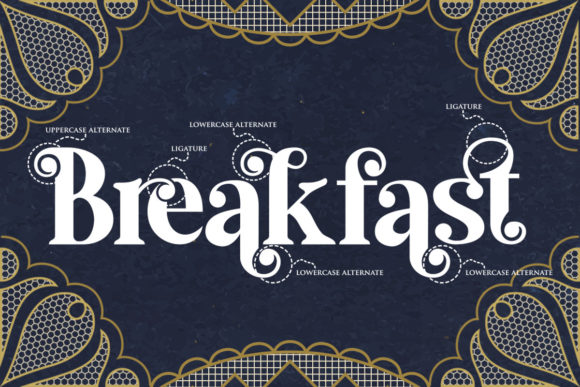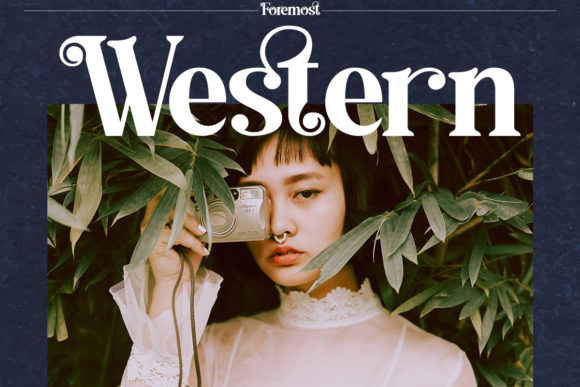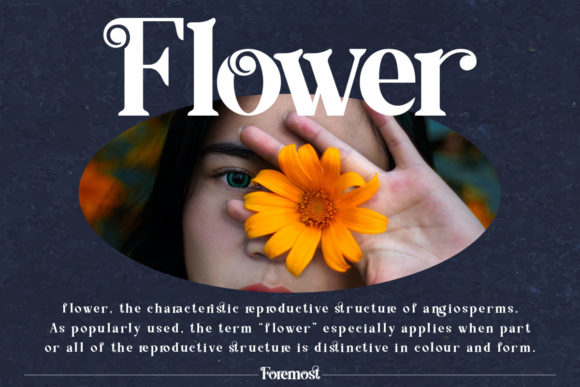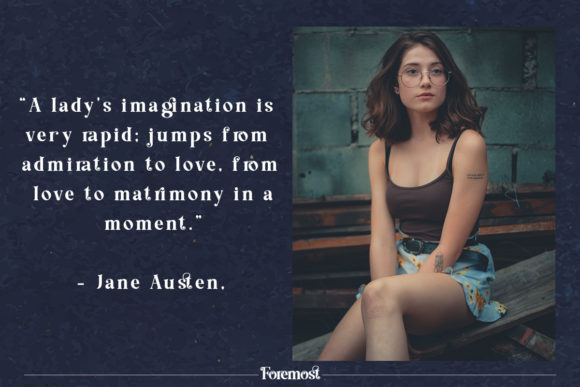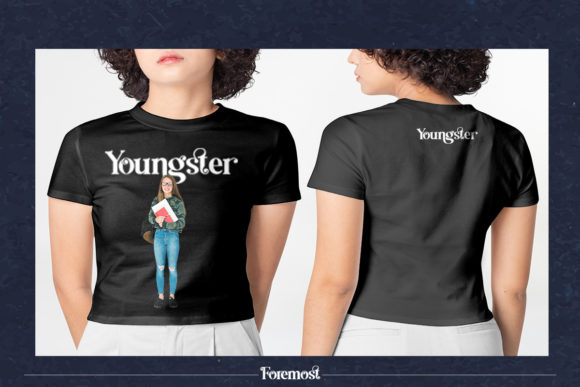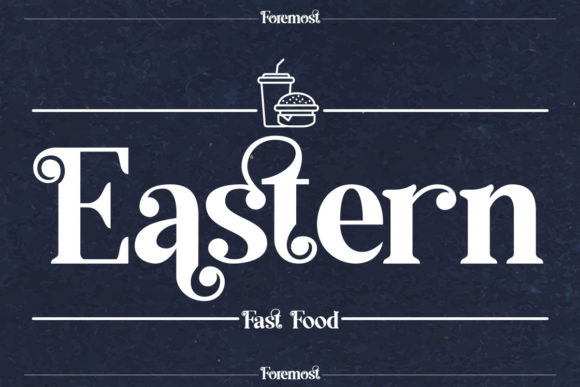
Unleashing the Elegance of Your Designs
As a designer, there’s nothing quite like the thrill of bringing a project to life. The moment when your idea finally takes shape, and you see your vision materialize on paper or screen. For me, that moment often begins with the perfect font. And today, I want to introduce you to one that’s sure to elevate your designs to new heights: the Foremost Font.
With its classy and stylish serif design, the Foremost Font is the perfect choice for any project that demands a touch of sophistication. Whether you’re creating a luxurious logo, designing a high-end book cover, or crafting a fashion brand’s identity, this font is sure to make a statement. Its clean lines and smooth curves give any project an extra touch of class, making it a valuable addition to any designer’s toolkit.
So, if you’re looking to take your designs to the next level, look no further than the Foremost Font.
Foremost Font Key Features
- Font Family: Foremost Font offers a range of font styles, including sans-serif, serif, and script.
- Character Set: Includes a comprehensive character set, covering Latin, Cyrillic, and Greek alphabets, as well as punctuation and symbols.
- Unique Characteristics: Foremost Font features a unique blend of modern and classic elements, with subtle flair and elegance, making it ideal for a wide range of design projects.
Foremost Font Review
Overall, I think Foremost Font is a solid choice for digital design projects. It’s clean and modern, making it easy to read and understand. ✨ The font’s versatility also makes it suitable for a wide range of applications, from body text to headlines.
- Legibility: Foremost Font is well-designed for readability, making it a great choice for lengthy texts or articles.
- Customization: The font offers a range of styles, from light to bold, allowing designers to tailor the look to their needs.
- Compatibility: Foremost Font works well across various devices and platforms, ensuring a consistent experience.
However, there are a few areas where Foremost Font falls short. ⚠️ For example:
- Lack of distinctiveness: While the font is clean and modern, it doesn’t have a particularly unique or memorable look.
- Narrow character set: Foremost Font may not support some less common languages or special characters.
Despite these limitations, I think Foremost Font is a reliable choice for designers looking for a clean and modern font. It’s not the most exciting or innovative option, but it gets the job done. With some careful consideration of its limitations, Foremost Font can be a valuable addition to any design toolkit.
Tips: Use Foremost Font for headings and titles to create a visually appealing design.
Foremost Font is suitable for:
- Brand identity and logo design.
- Editorial and publishing projects.
Tips: Use Foremost Font in conjunction with other design elements to create a cohesive and professional look.